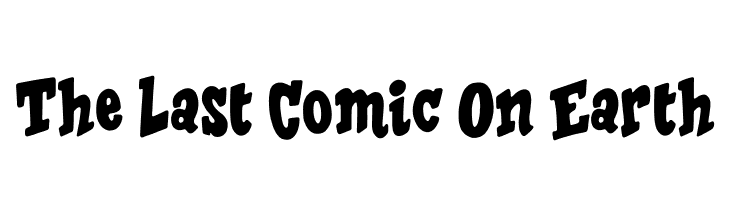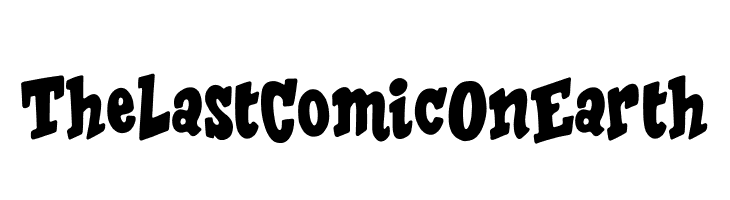
A bold, distressed slab serif font with a vintage, rugged appearance.
A playful, handwritten font with bold strokes and a casual style.
( Fonts by Chris Vile )
A bold, distressed font with a rugged, vintage appearance.
( Fonts by imagex )
A playful, bold font with cartoonish, exaggerated curves and a lively appearance.
( Fonts by imagex )
A bold, playful font with a cartoonish, comic book style.
A bold, expressive script font with fluid, dynamic strokes and a handwritten feel.
A bold, medieval-inspired font with sharp, angular serifs and a commanding presence.
A bold, geometric font with sharp angles and uniform stroke width.